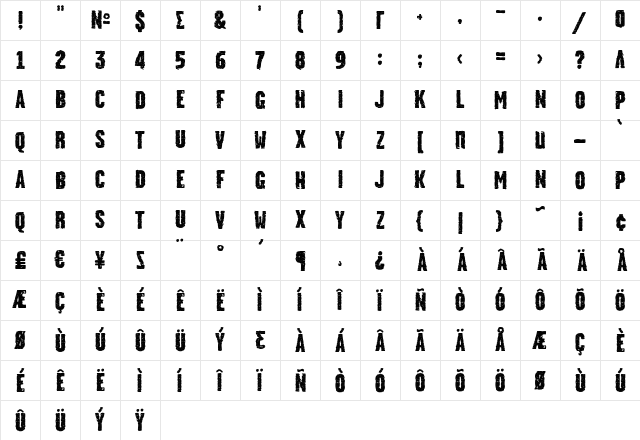
Stalker Regular Free Font
Stalker Regular
Foundry: Canada Type / Rebecca Alaccari
Design Context for Stalker
Stalker is a composed and adaptable typeface that performs quietly and consistently across a wide range of design contexts.
Who designed the Stalker Regular font?
This font was published by Canada Type / Rebecca Alaccari. Check the technical specs section for copyright and designer details.